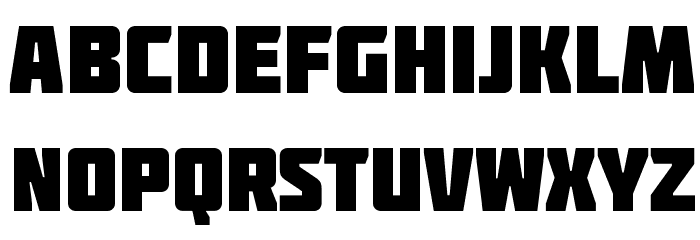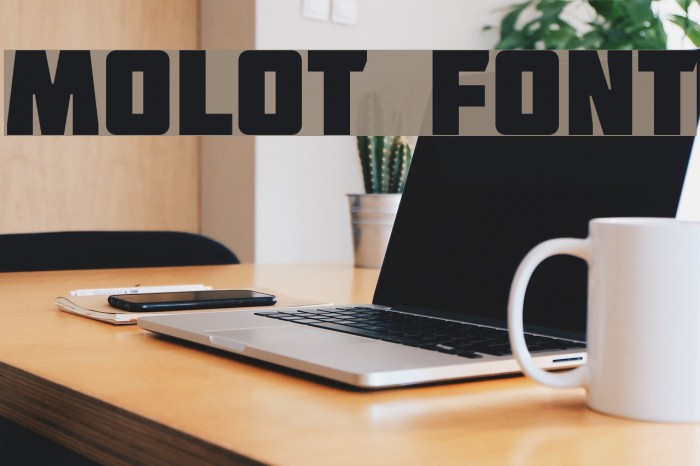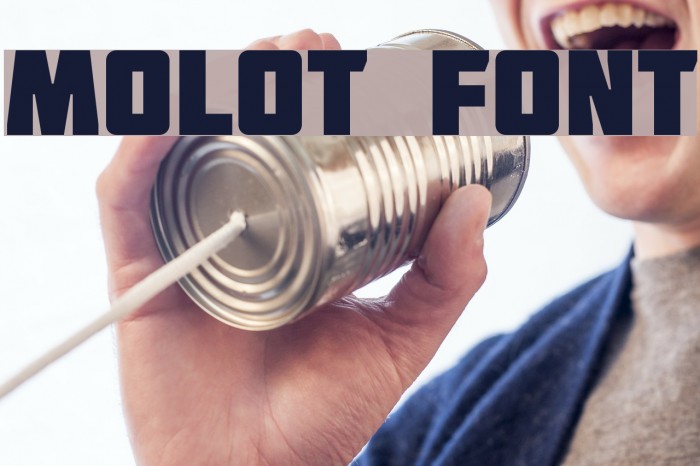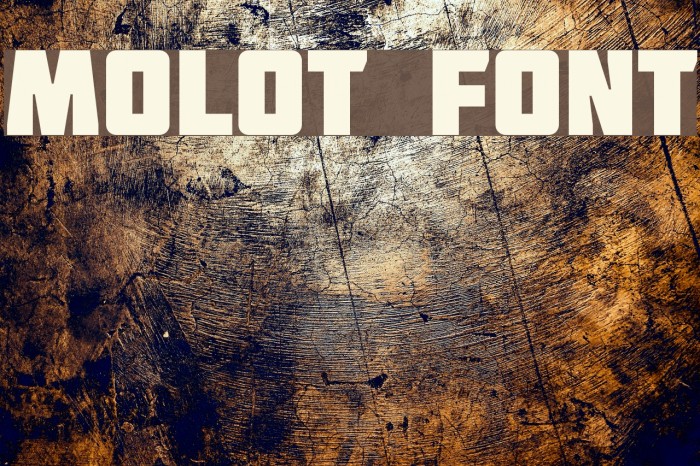
Molot Font
This font exhibits a bold and robust style, characterized by its thick, blocky letterforms that convey strength and impact. The uppercase and lowercase letters maintain a consistent width, creating a uniform appearance. The numbers and special characters follow the same bold design, ensuring a cohesive look across all elements. The font's geometric shapes and sharp edges give it a modern and industrial feel, making it suitable for attention-grabbing headlines and logos. Its strong presence and clear readability make it ideal for projects that require a commanding visual statement.
A bold, blocky font with a modern, industrial feel.
- Proposed Projects: Ideal for headlines, logos, posters, and branding materials that require a strong visual impact.